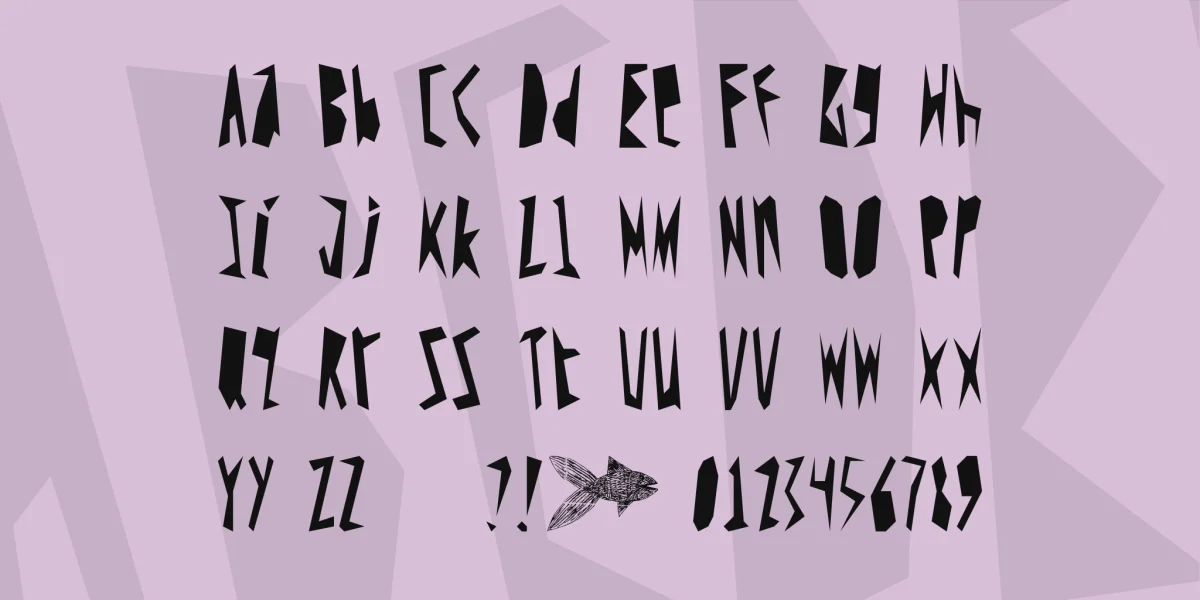
YEH
is a(nother!) «dibujado»/dabnotu font
why:
I needed a stencil-able font
technical notes:
each character/glyph
is made with 8 points
(except the fish)
within a 5x15 grid
(in the above-mentioned app)